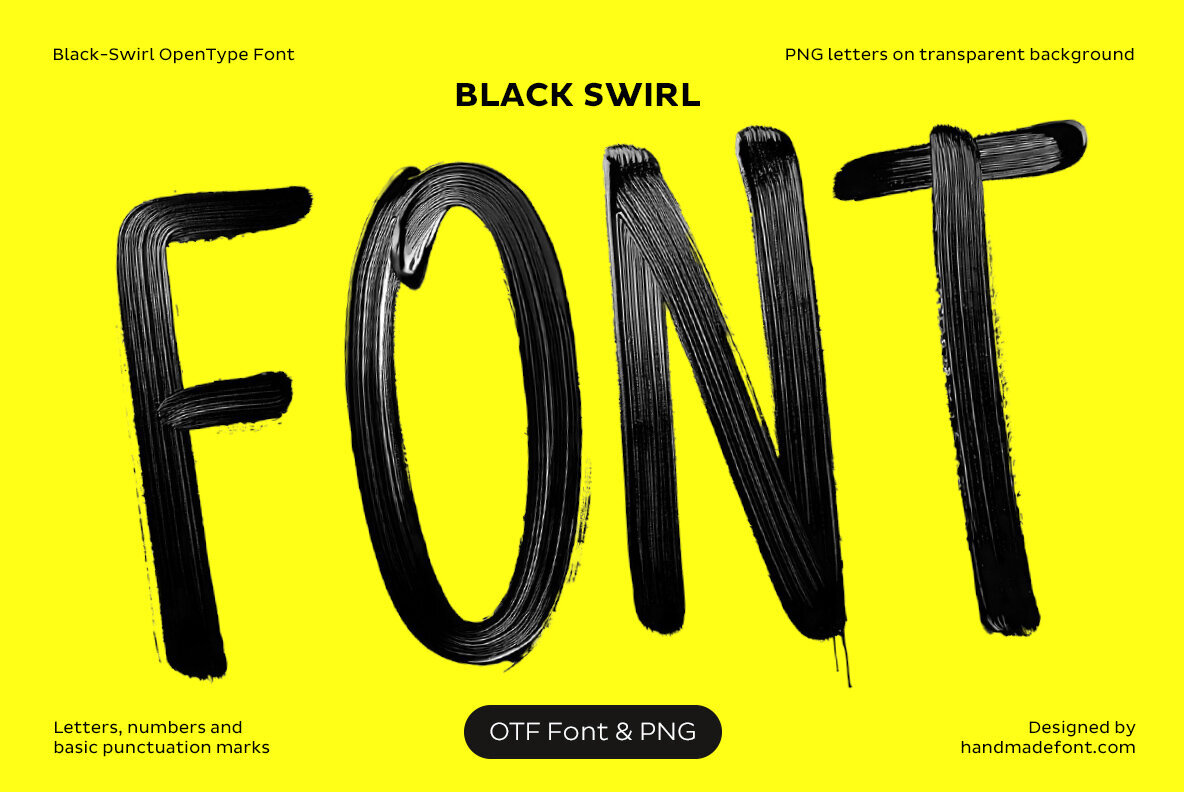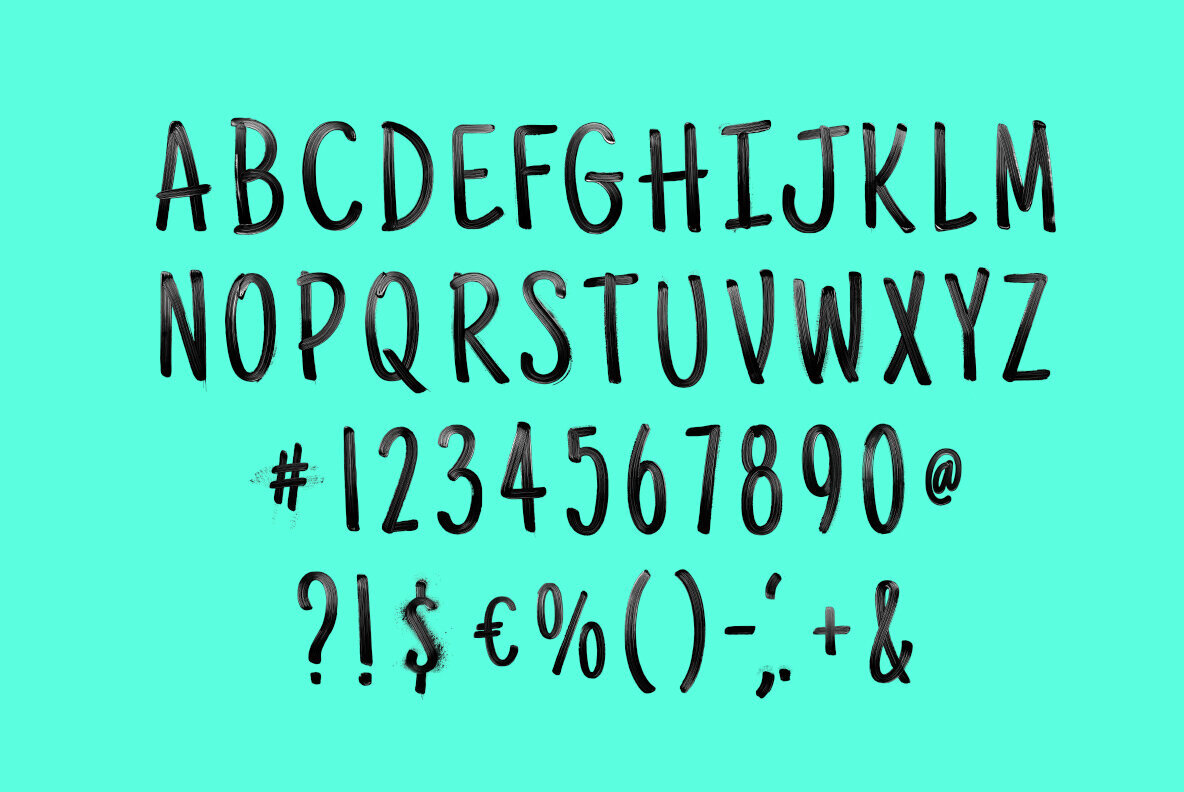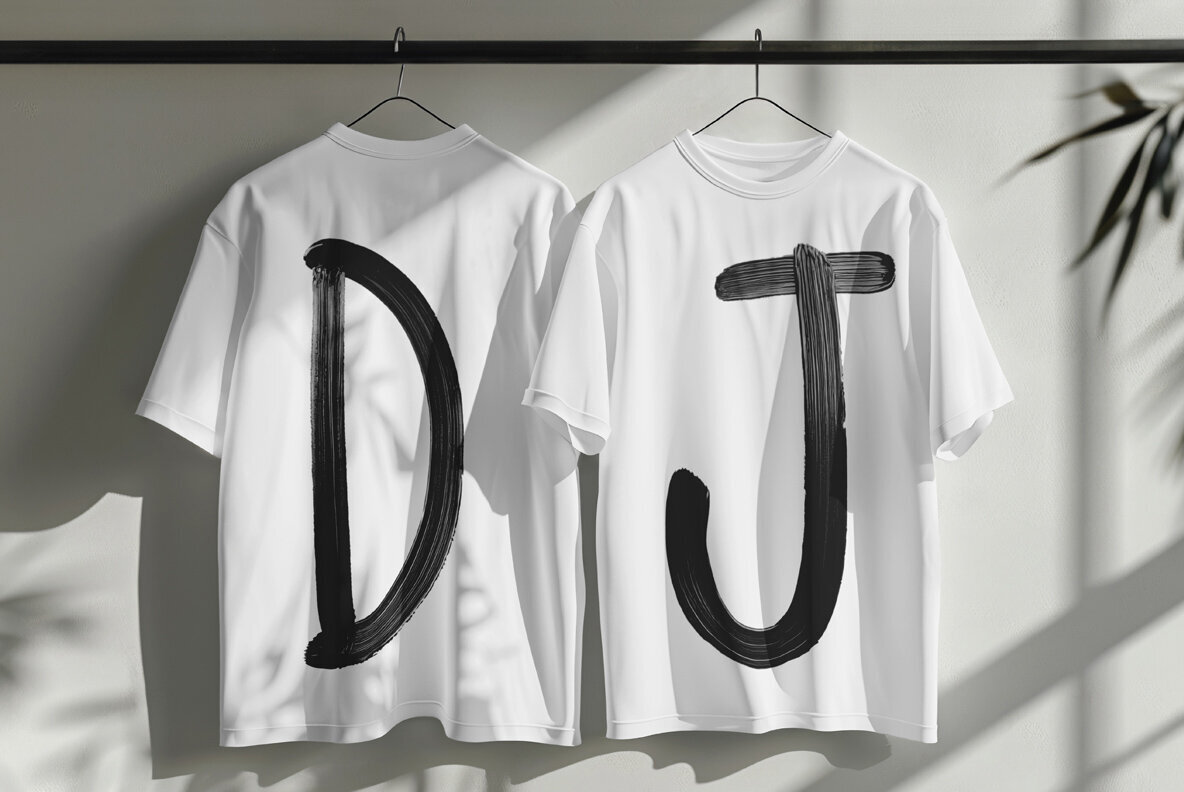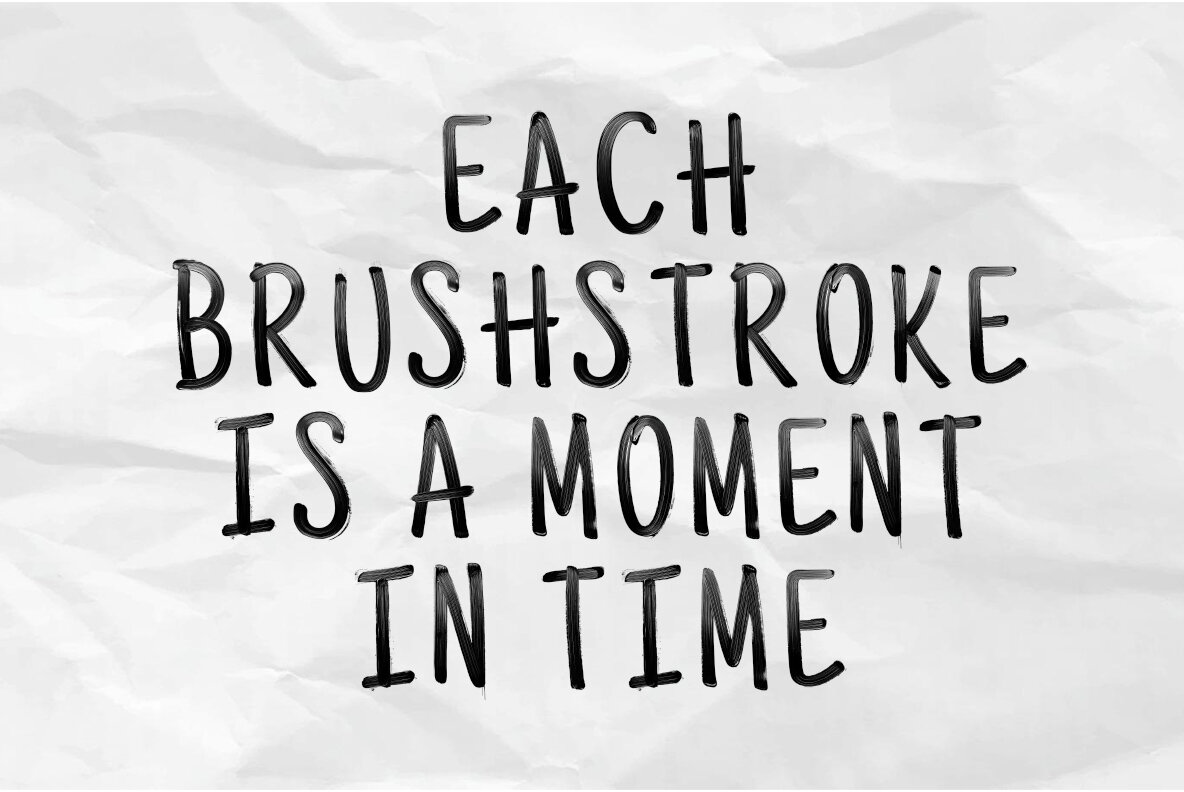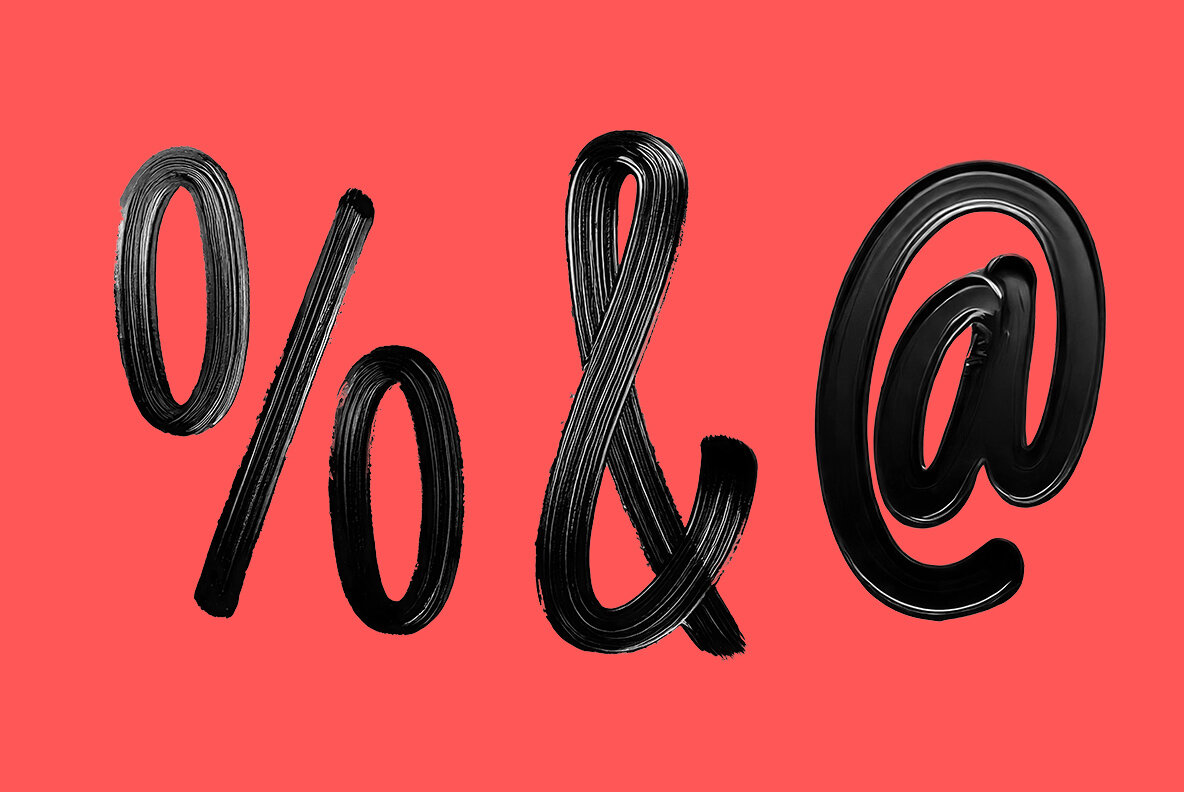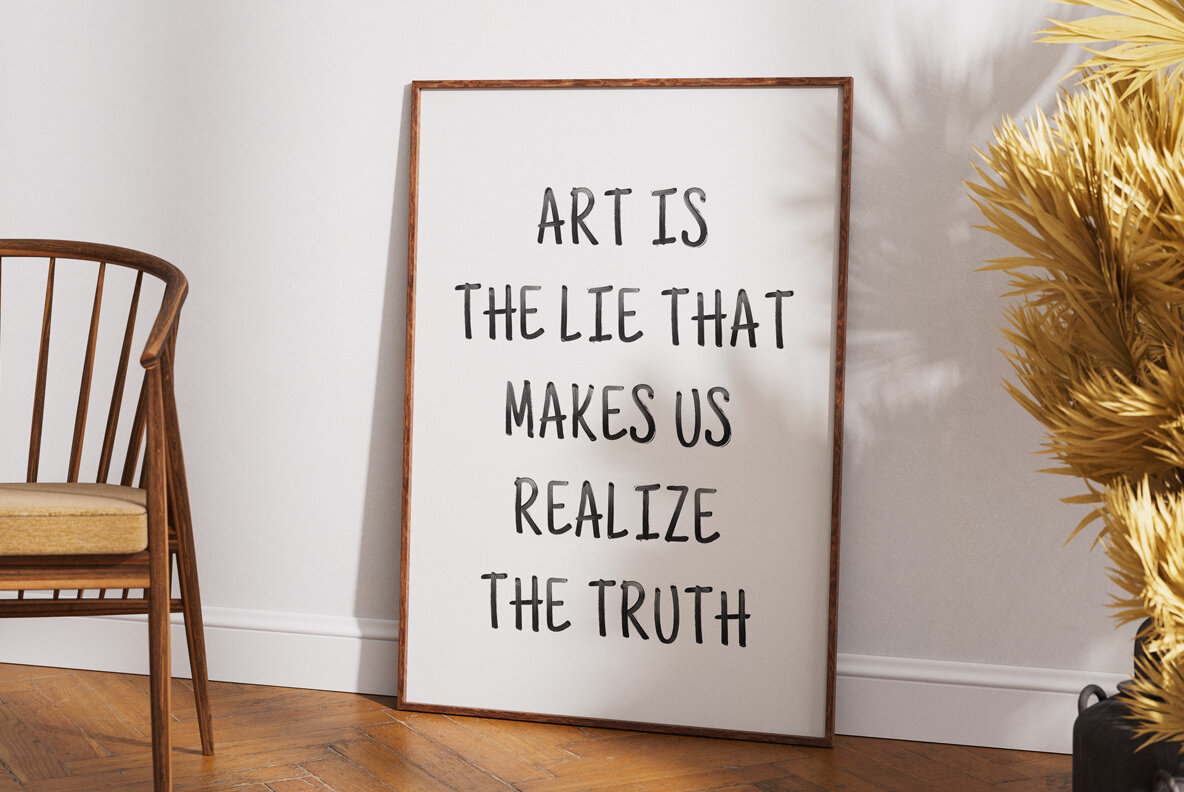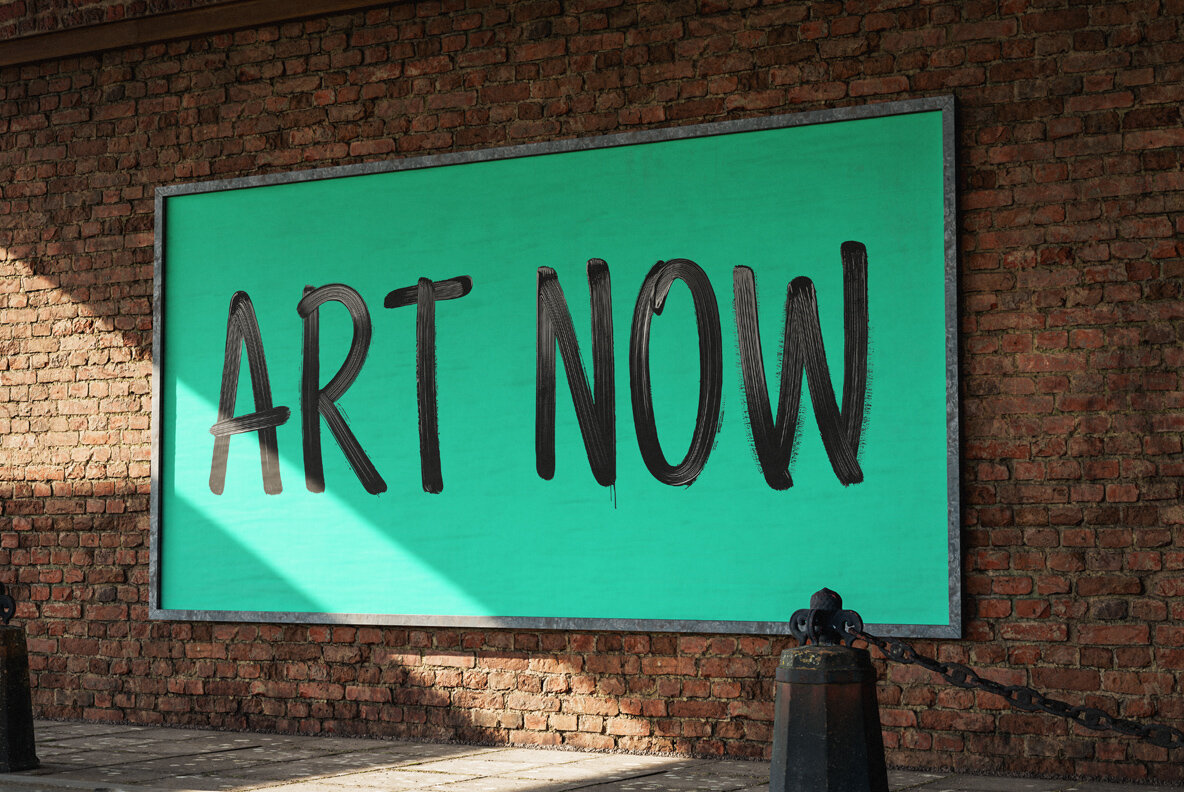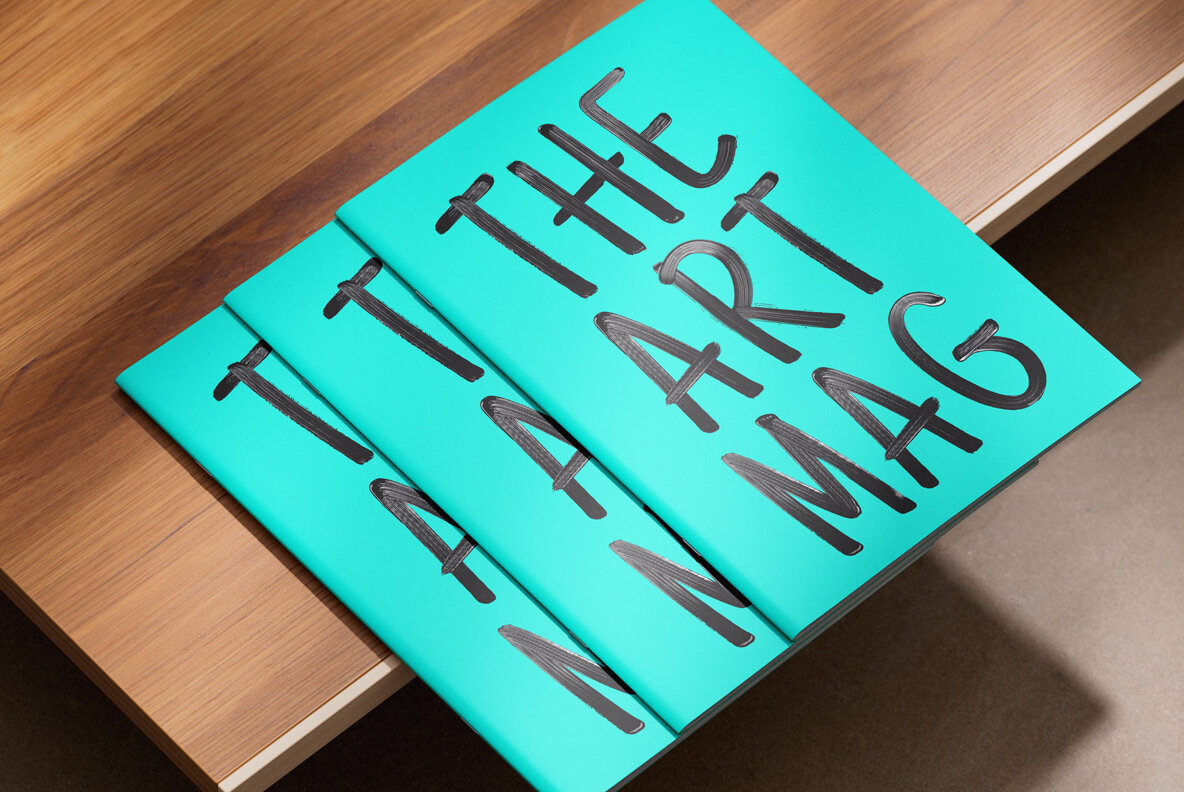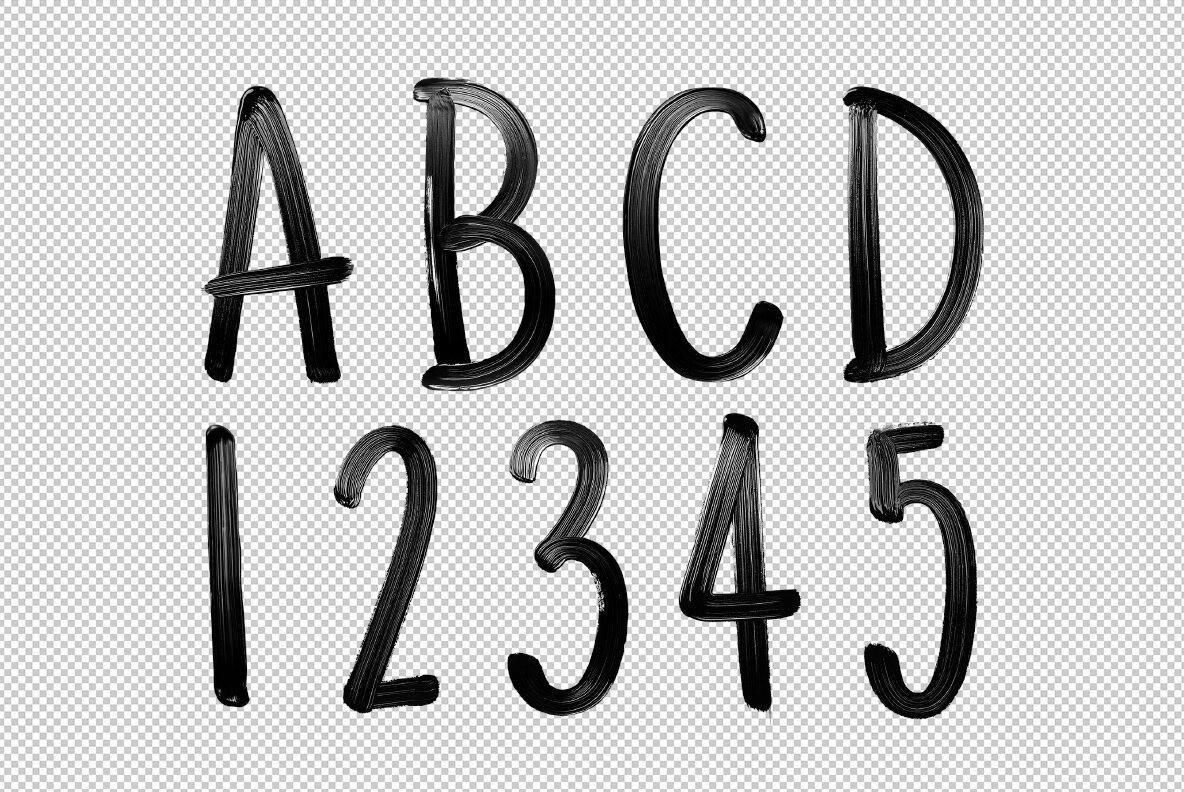
Step into the bold world of Black Swirl, a font that leaps off the page with the energy of a midnight dance party. This unapologetically messy and striking typeface doesn't follow the rules—it's all about leaving a lasting impression. Designed for those moments when your words need to scream rather than whisper, Black Swirl is perfect for edgy brands, eye-catching posters, or any project that demands a splash of attitude. Be warned: once you try Black Swirl, there's no returning to plain and conventional fonts. Embrace the chaos and let your designs make a statement!Black Swirl Font